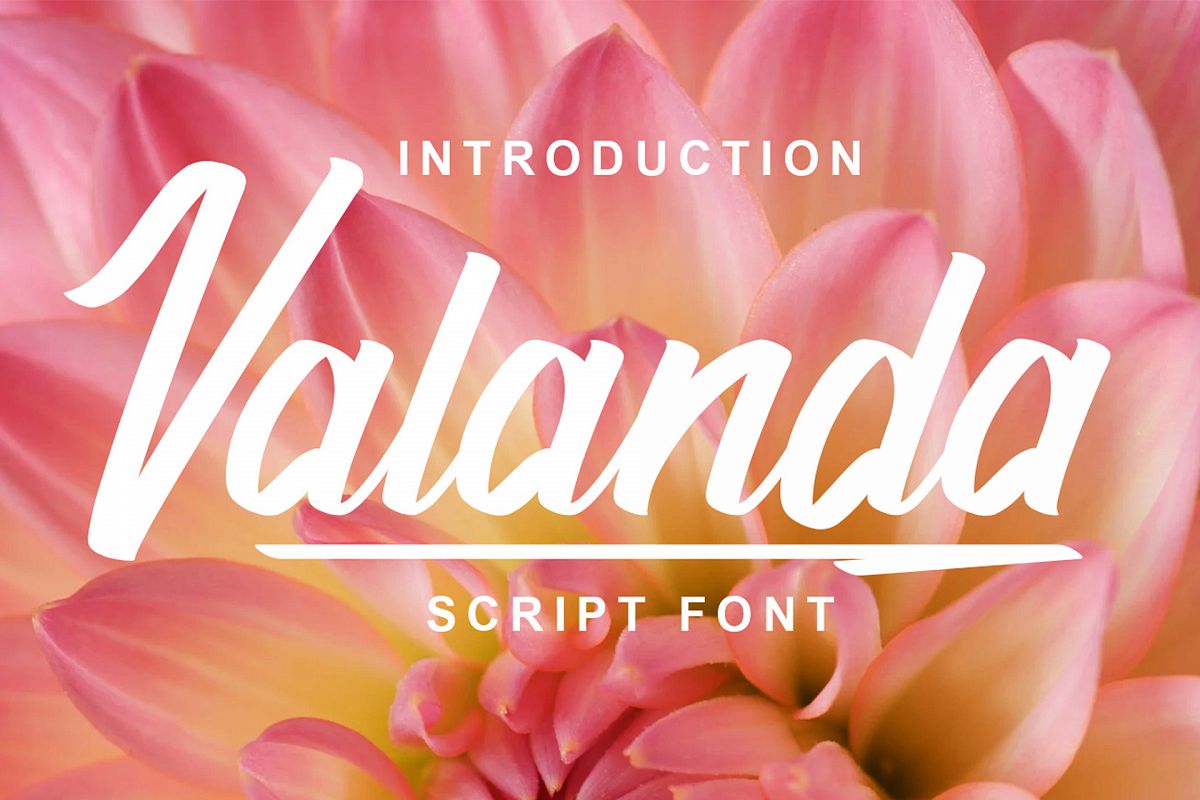
Valanda
Valanda is hand script fonts with natural curves.
Equipped with font:
- numbers
And of course there are several other features
- Alternates
- Swashes